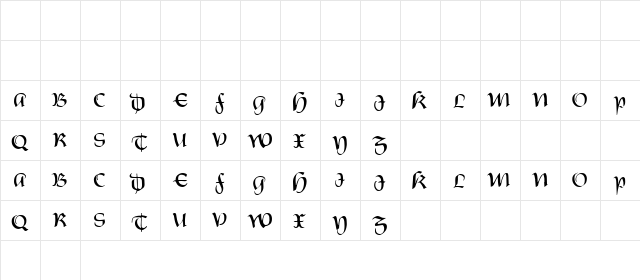
Full Moon 1 Regular
Design Context for Full Moon 1
Full Moon 1 is a composed and adaptable typeface that performs quietly and consistently across a wide range of design contexts.
Pro Tip: Use Full Moon 1 in both headline and body roles to test its range before committing to a single application.